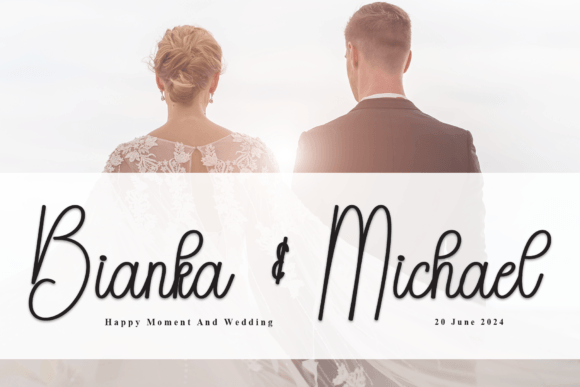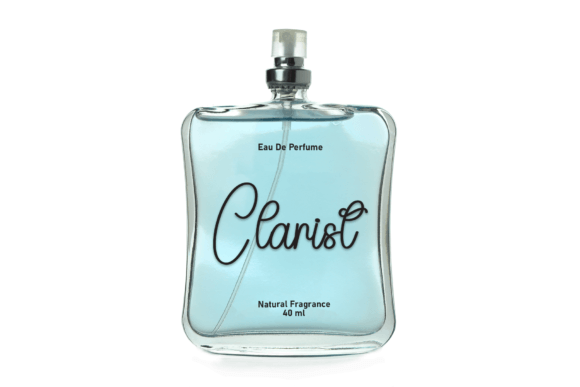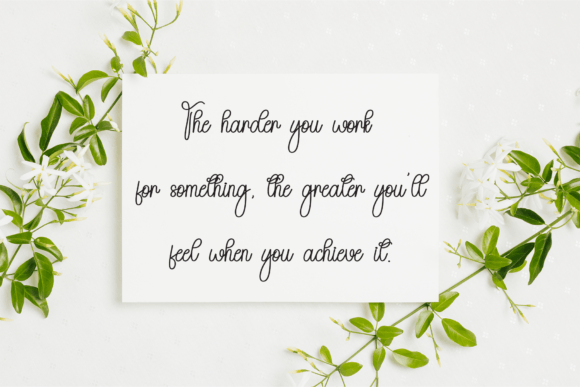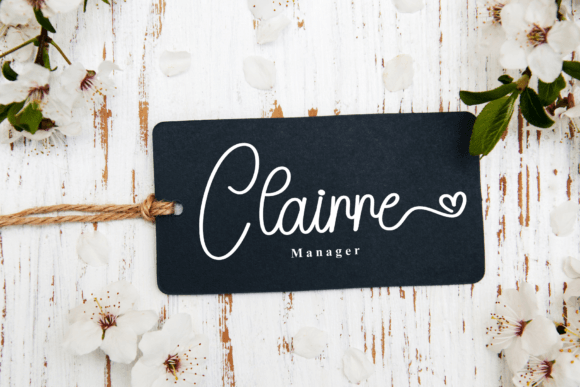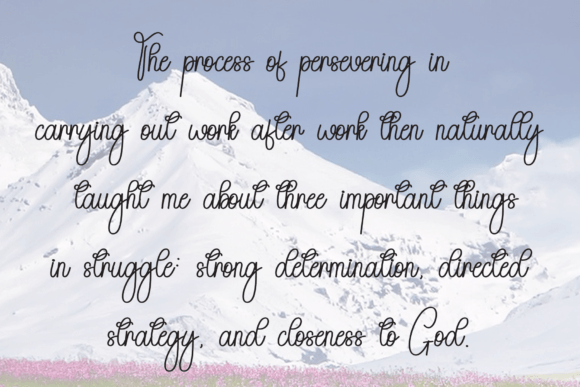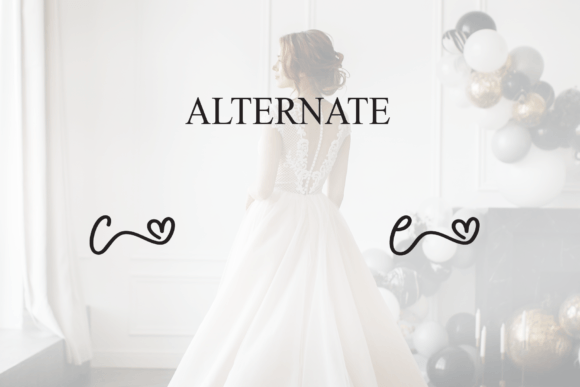
The Sweetest Font for Your Big Day
Have you ever been browsing through a stationery store, and suddenly, you come across the perfect font for your wedding invitations? It’s that moment when everything clicks, and you can envision the entire design coming together. For many designers, this is the moment they’ve been waiting for – the chance to create something truly special for a couple’s big day. And for those who’ve found the perfect font, it’s often the start of a beautiful collaboration.
Meet Bride Font, a sweet and friendly handwritten font that’s perfect for adding a fun touch to any design. Whether it’s a wedding invitation, a card, or a custom design, Bride Font is sure to bring a smile to anyone’s face. As a designer, you know how valuable it is to have a versatile font that can be used in a variety of projects. And with Bride Font, you’ll have just that – a reliable companion that will help you create beautiful and unique designs every time.
Bride Font Key Features
- Font Family: Bride is a script font designed for wedding invitations and other formal events.
- Font Size and Style: Bride font is available in various sizes, ranging from 12 to 72 points, with both regular and bold styles.
- Resolution: The font is optimized for high-resolution printing and digital display, making it suitable for both print and web applications.
- Unique Characteristics: Bride font features elegant, flowing connections and ornate details, making it perfect for formal wedding invitations and other special occasions.
Bride Font Review
As a designer, I was excited to dive into the “Bride Font” and see what it had to offer. ✨ One of the things that immediately caught my eye was the elegant, cursive feel of the font. It’s perfect for creating a romantic and whimsical atmosphere, making it ideal for wedding invitations, wedding decorations, and other wedding-related materials.
Another aspect that works well is the font’s versatility. ✨ It comes in a range of weights and styles, allowing designers to mix and match to create unique and eye-catching designs. The font also works well in both digital and print formats, making it a great choice for a variety of projects.
While the “Bride Font” has a lot of great qualities, there are some limitations to consider. ⚠️ One of the main issues is the font’s readability at smaller font sizes. In some cases, the text can become difficult to read, which may require designers to use larger font sizes or adjust the line spacing.
Additionally, the font may not be suitable for projects that require a more modern or minimalist look. ⚠️ The font’s ornate feel can make it feel dated or overly elaborate in some contexts.
Overall, the “Bride Font” is a great choice for designers looking to create a romantic and elegant atmosphere. While it may have some limitations, its versatility and range of styles make it a valuable addition to any designer’s toolkit.
- Elegant, cursive feel
- Range of weights and styles
- Versatile for digital and print formats
- May be difficult to read at smaller font sizes
- Not suitable for modern or minimalist projects
Tips for Getting the Most Out of Bride Font
Use Bride Font for wedding invitations, save-the-date cards, and other wedding-related materials.
Combine Bride Font with other elegant fonts for a sophisticated look.
Bride Font is ideal for:
Wedding invitations
Save-the-date cards
Wedding programs
Wedding websites